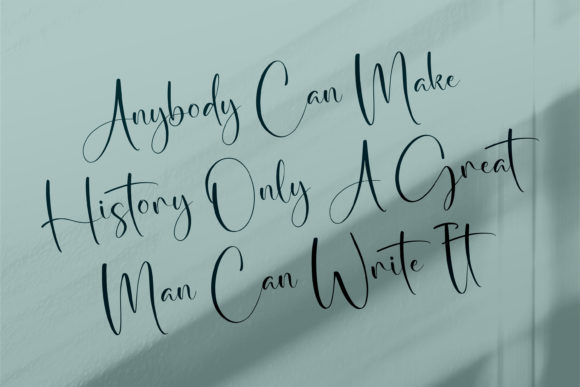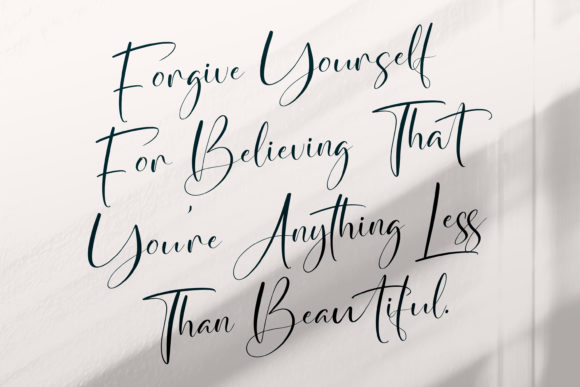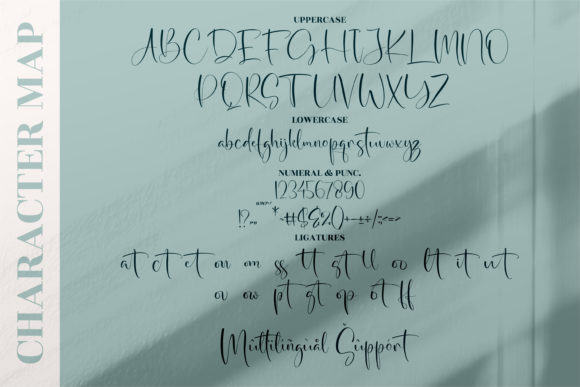
About Winterland Font
Winterland is a lovely and delicate script font that exudes elegance and class. This font was particularly crafted for those who need a beautiful and refreshing look to their designs. Winterland is PUA encoded which means you can access all glyphs and swashes with ease!